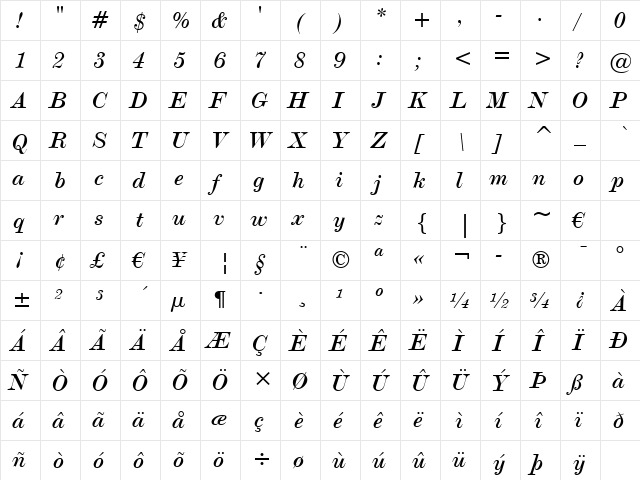
Modern20 BT Italic
Design Context for Modern20 BT Typeface
Modern20 BT is a composed and adaptable typeface that performs quietly and consistently across a wide range of design contexts. The slanted form adds forward momentum and visual energy.
Pro Tip: Try Modern20 BT for annotation and caption copy alongside an upright companion — the contrast in angle creates a dynamic but ordered typographic system.